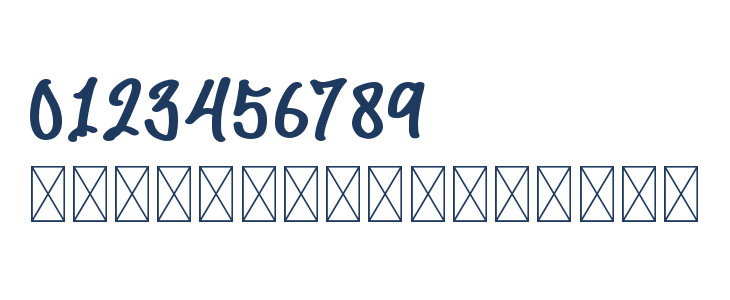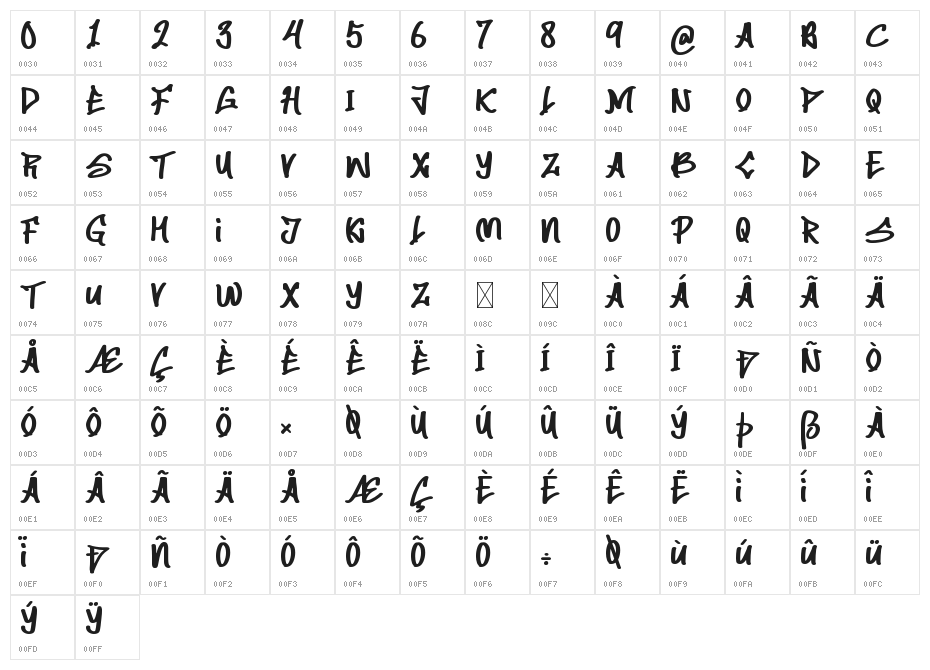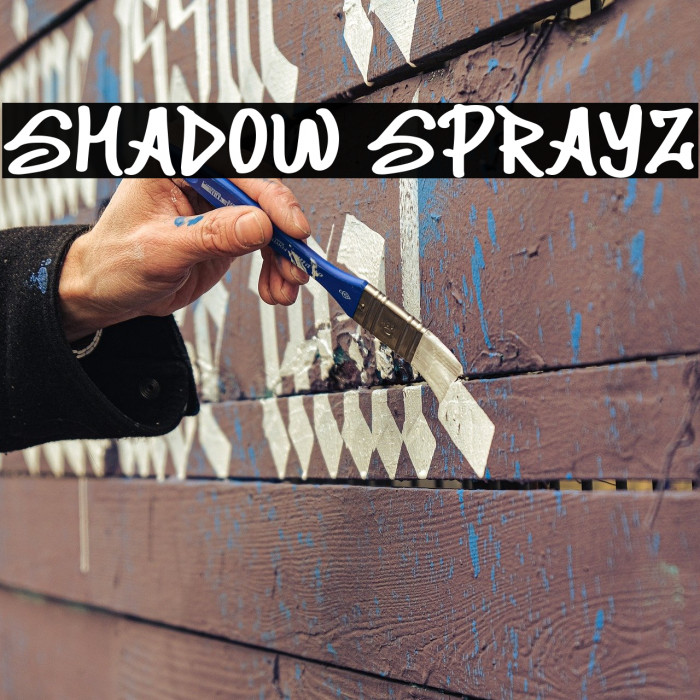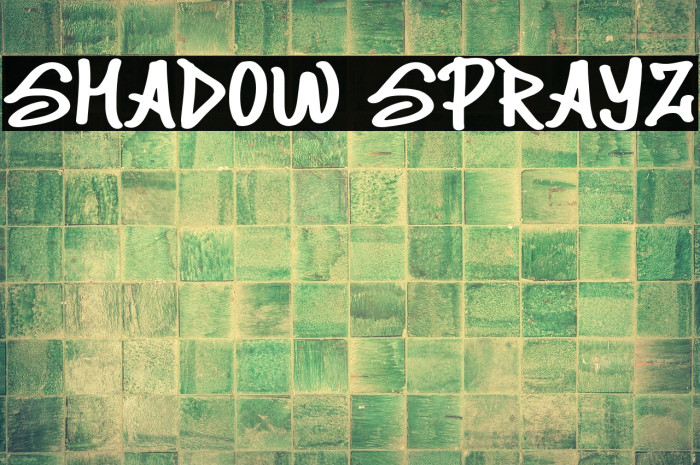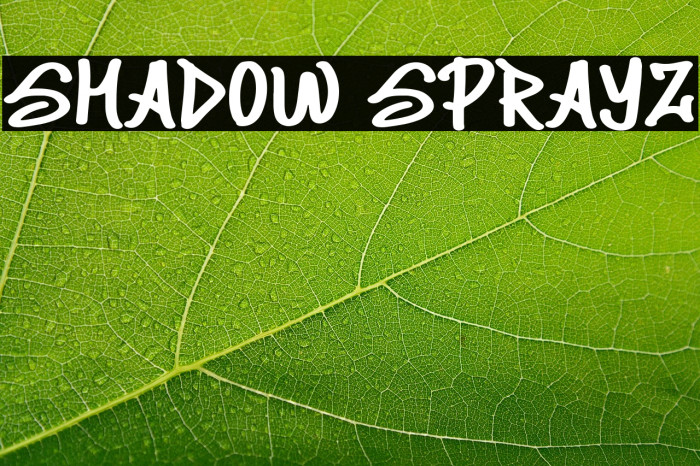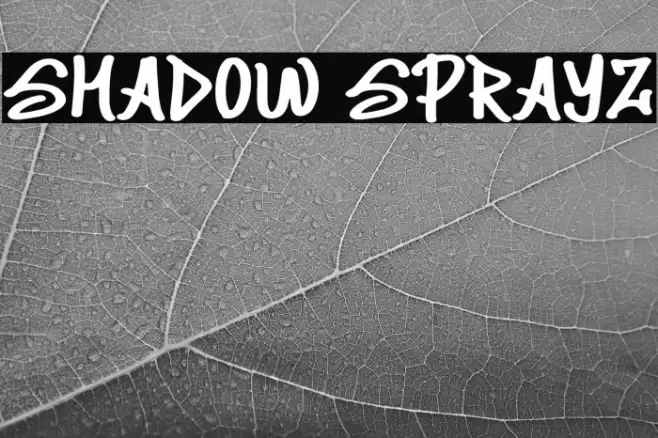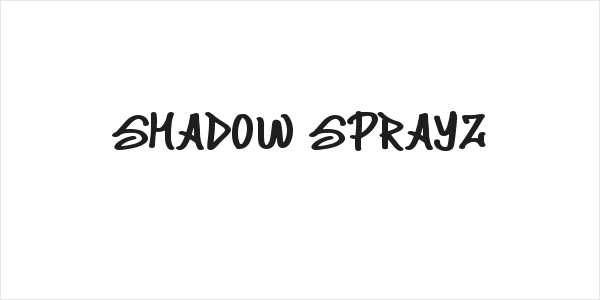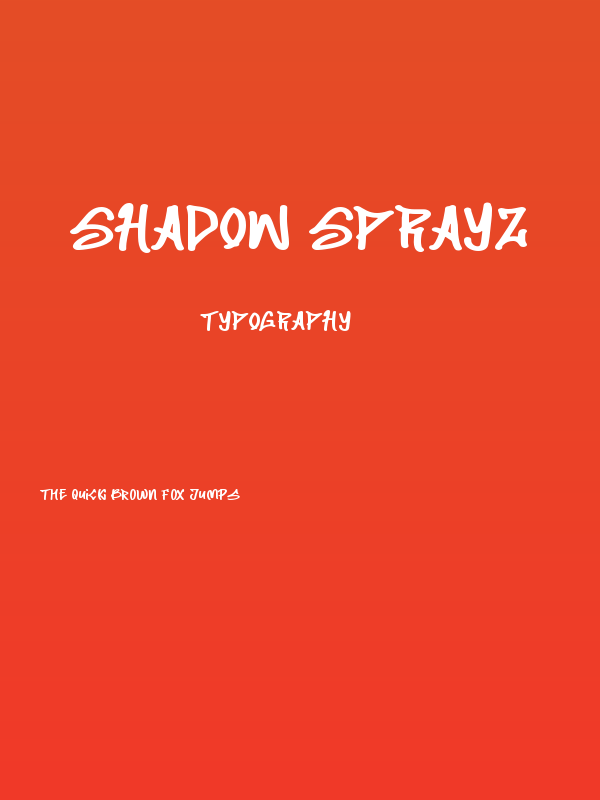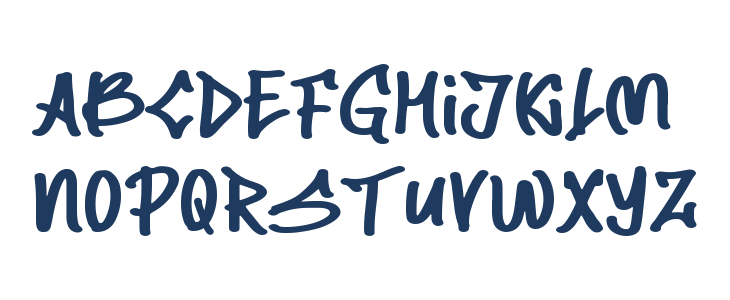
Shadow Sprayz Font
Shadow Sprayz Description
This font features a bold, graffiti-inspired style with a dynamic and energetic appearance. The characters are crafted with a brush-like texture, giving them a hand-painted feel. The uppercase and lowercase letters maintain a consistent flow, while the numbers and special characters complement the overall aesthetic. The strokes are thick and rounded, adding to the boldness and visibility of the text. This font is ideal for projects that require a strong visual impact and a modern, urban vibe.
| Overall Style | Modern, Urban |
| Use Case | Logos, Posters, Headlines |
| Proposed Projects | Perfect for street art designs, urban-themed posters, music album covers, and edgy branding projects. |